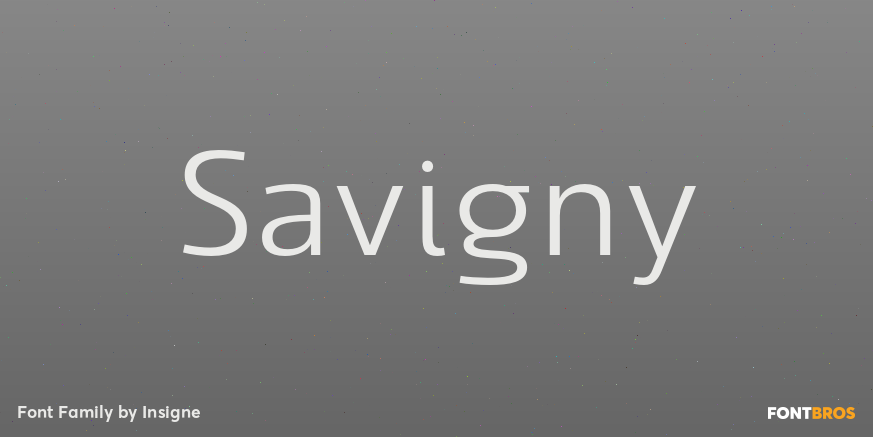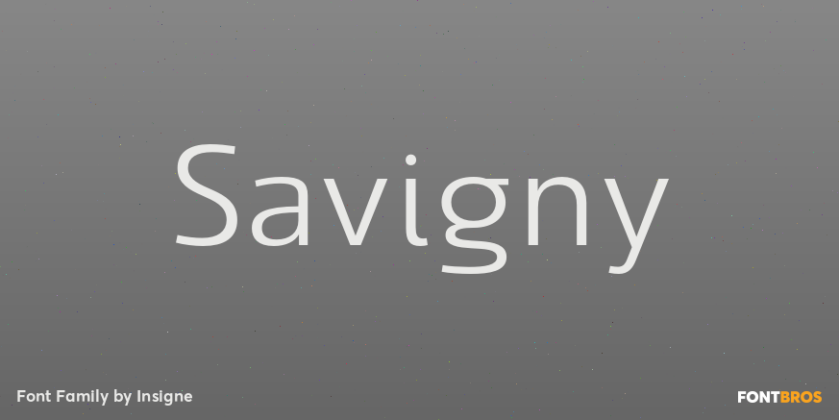
Savigny
About Savigny
Savigny began as an offshoot of Le Havre. Le Havre met my design objective of a geometric sans serif with a strong art deco touch. Le Havre\’s primary inspiration came from the art deco titling of the 1930\’s, and the lower case was just icing. The art…